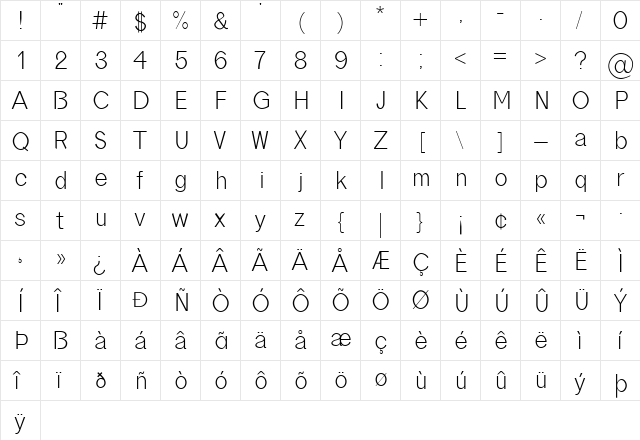
borneo Regular
| Designer | chaplin |
Design Context for borneo Typeface
borneo takes a measured approach to typography — its balanced proportions and neutral character make it a reliable workhorse for both digital and print work.